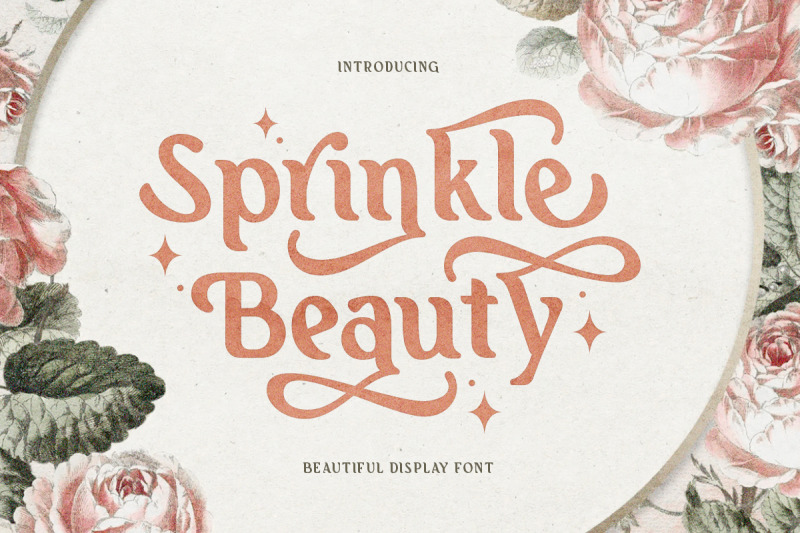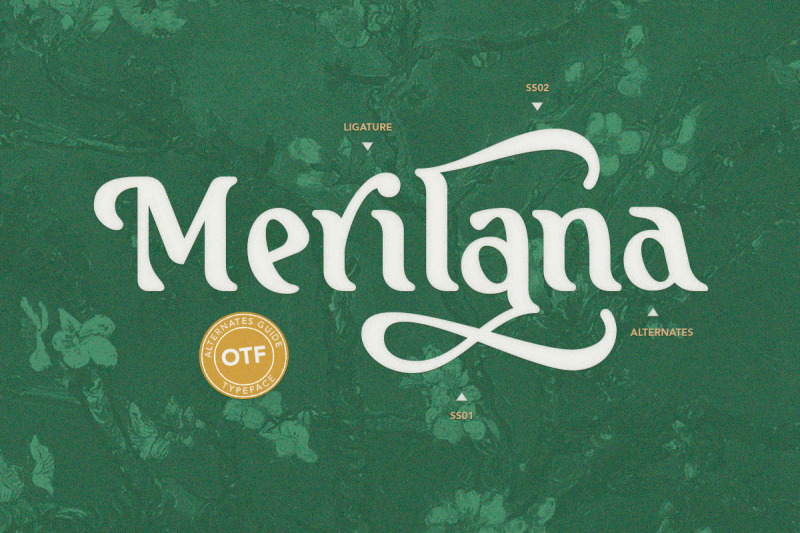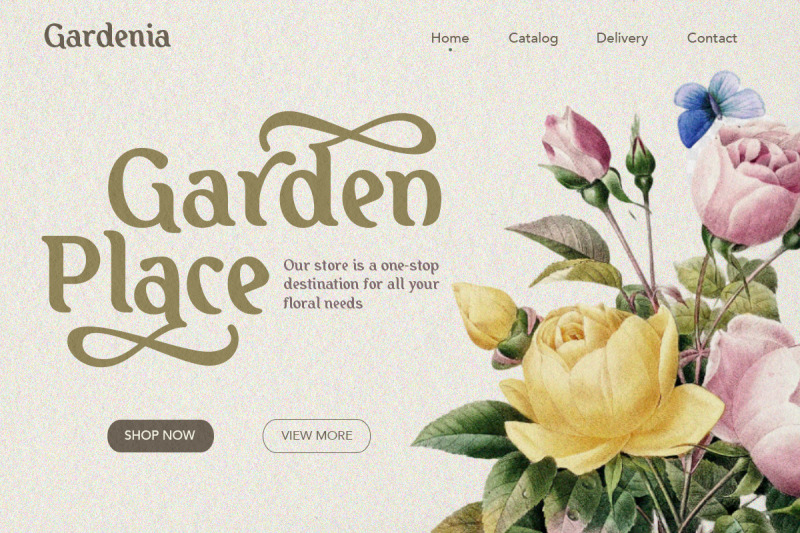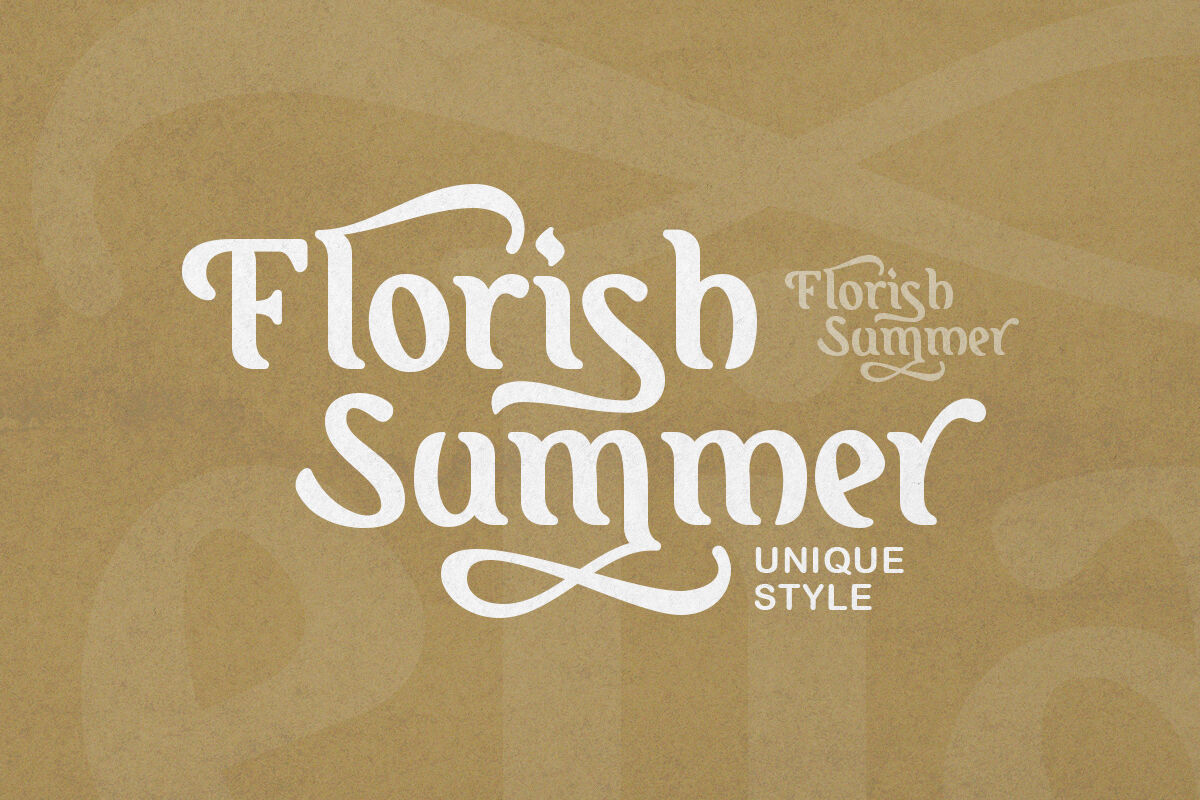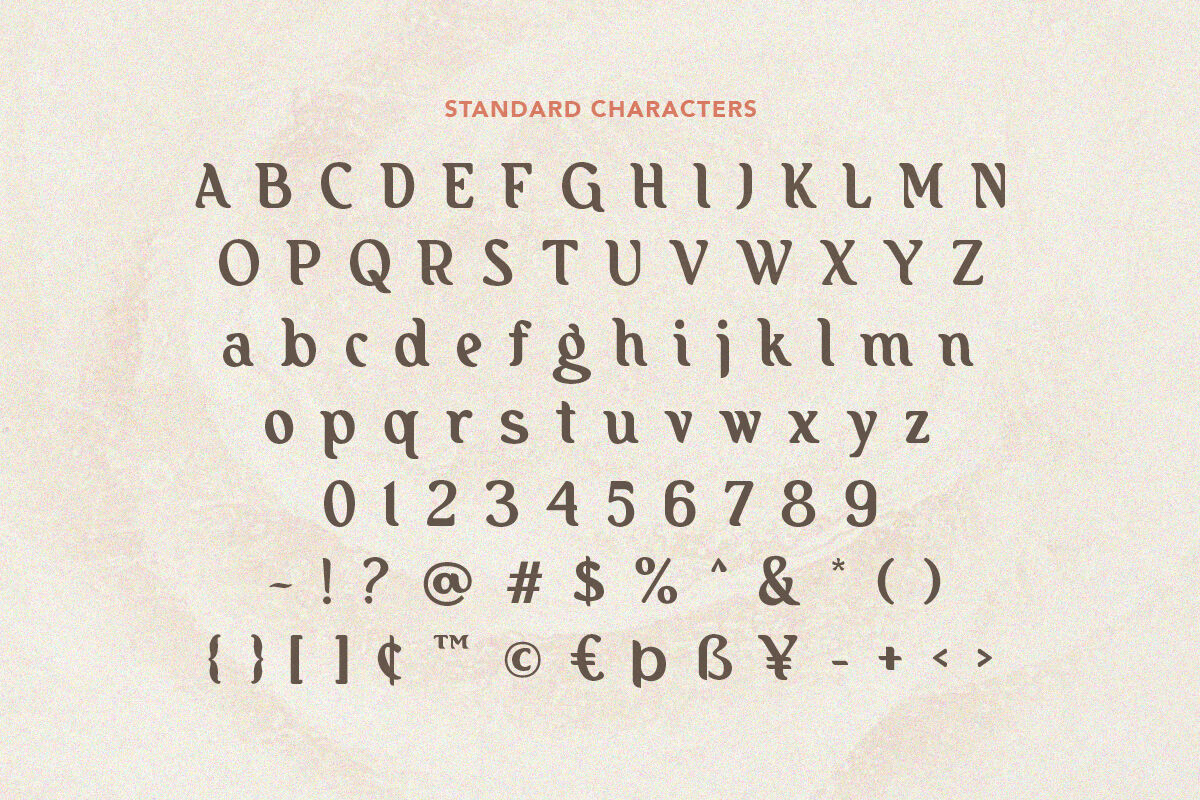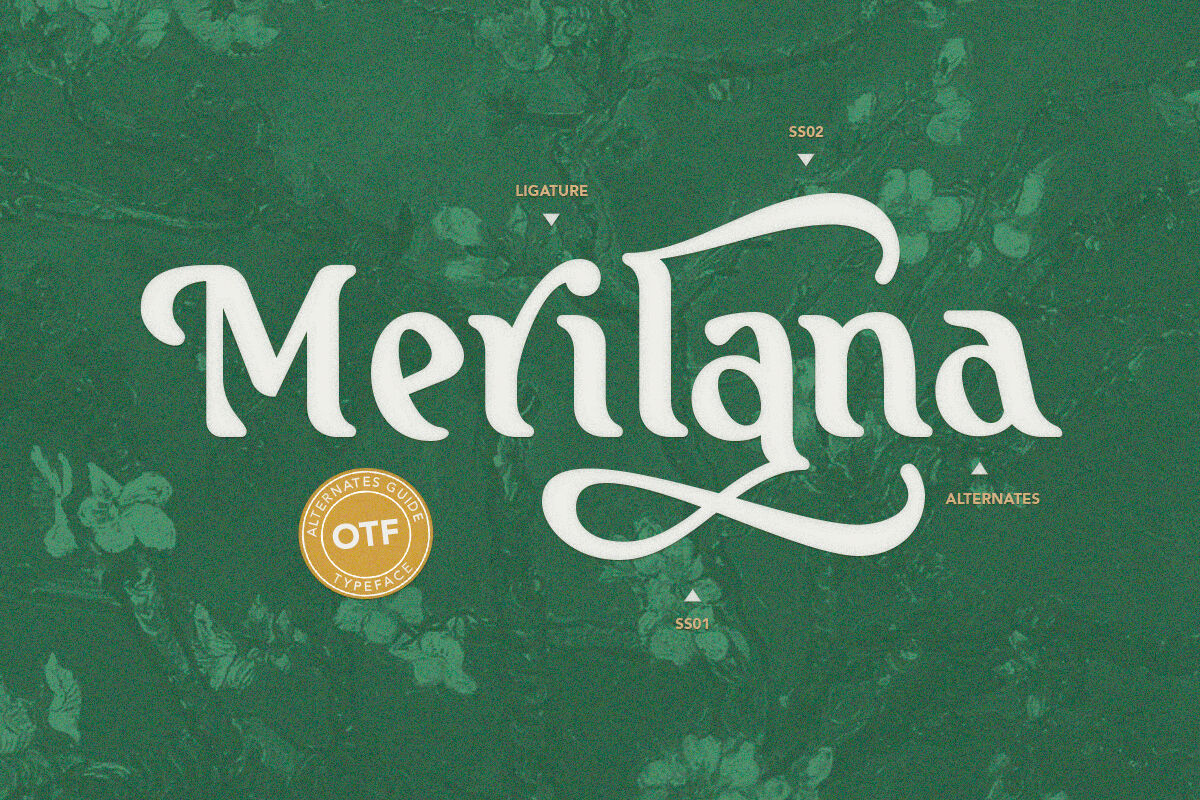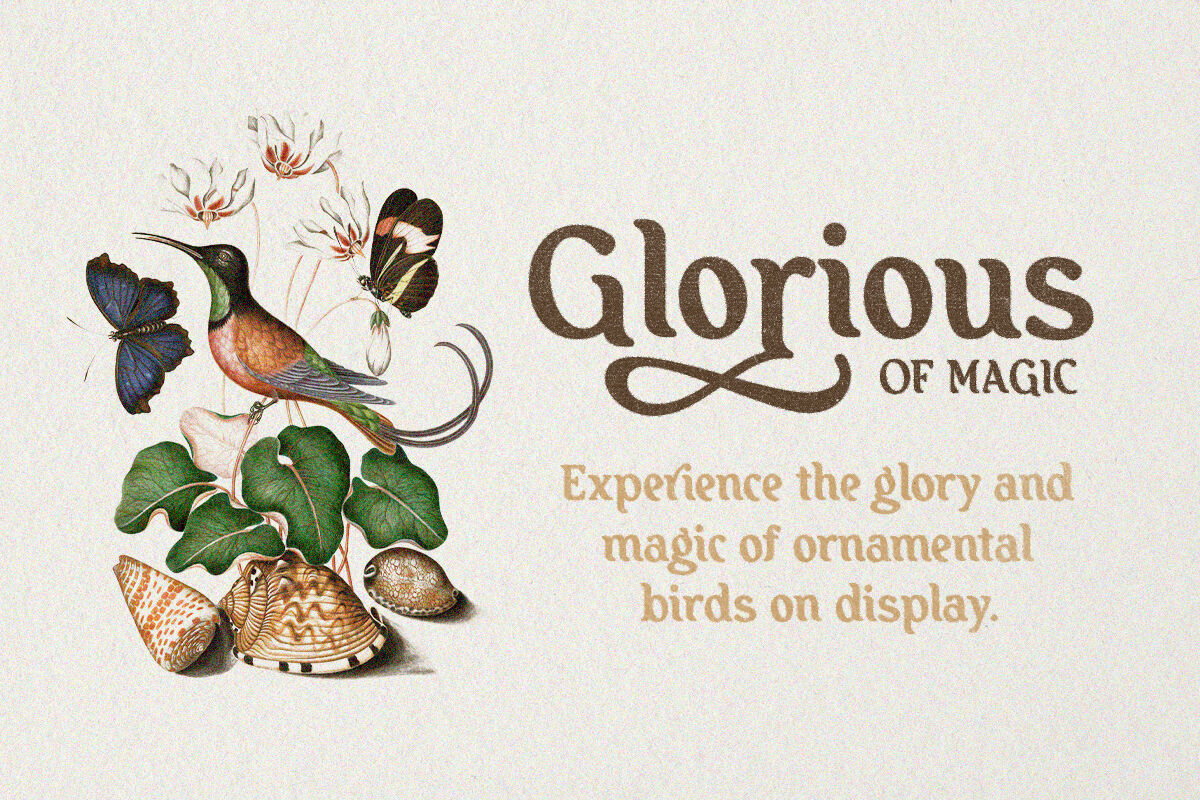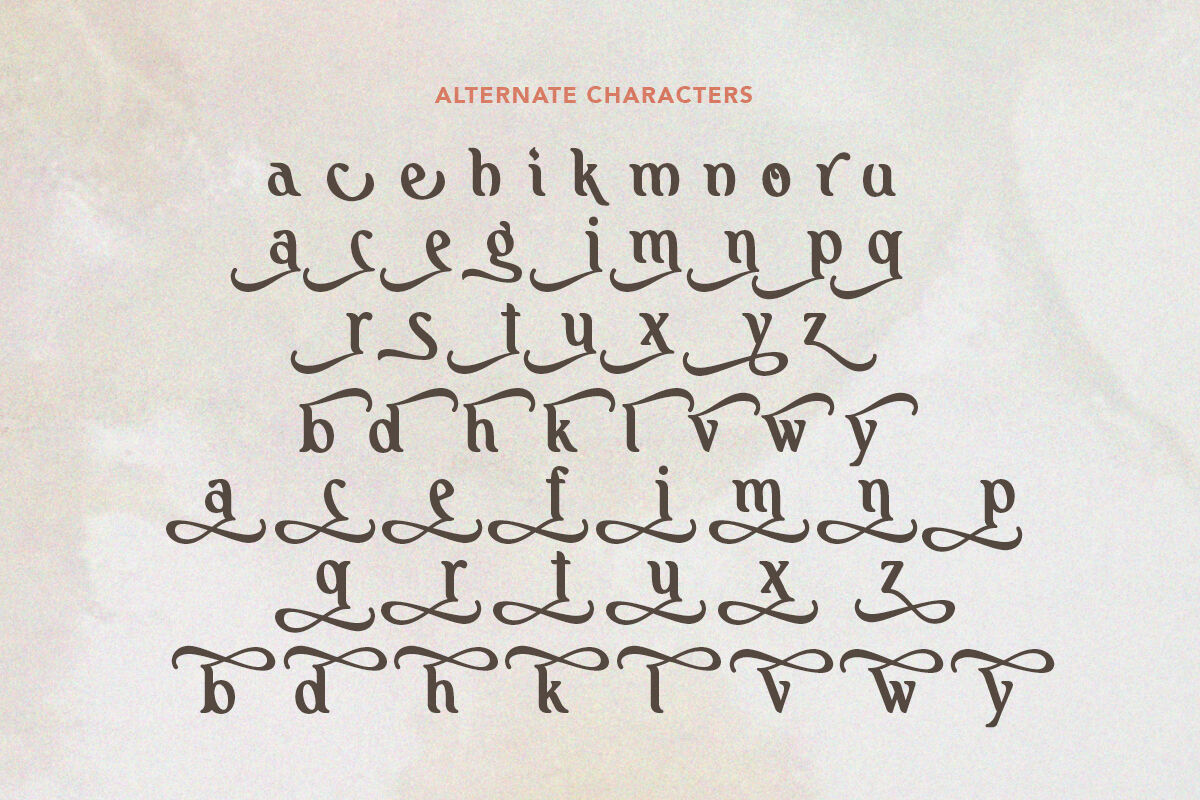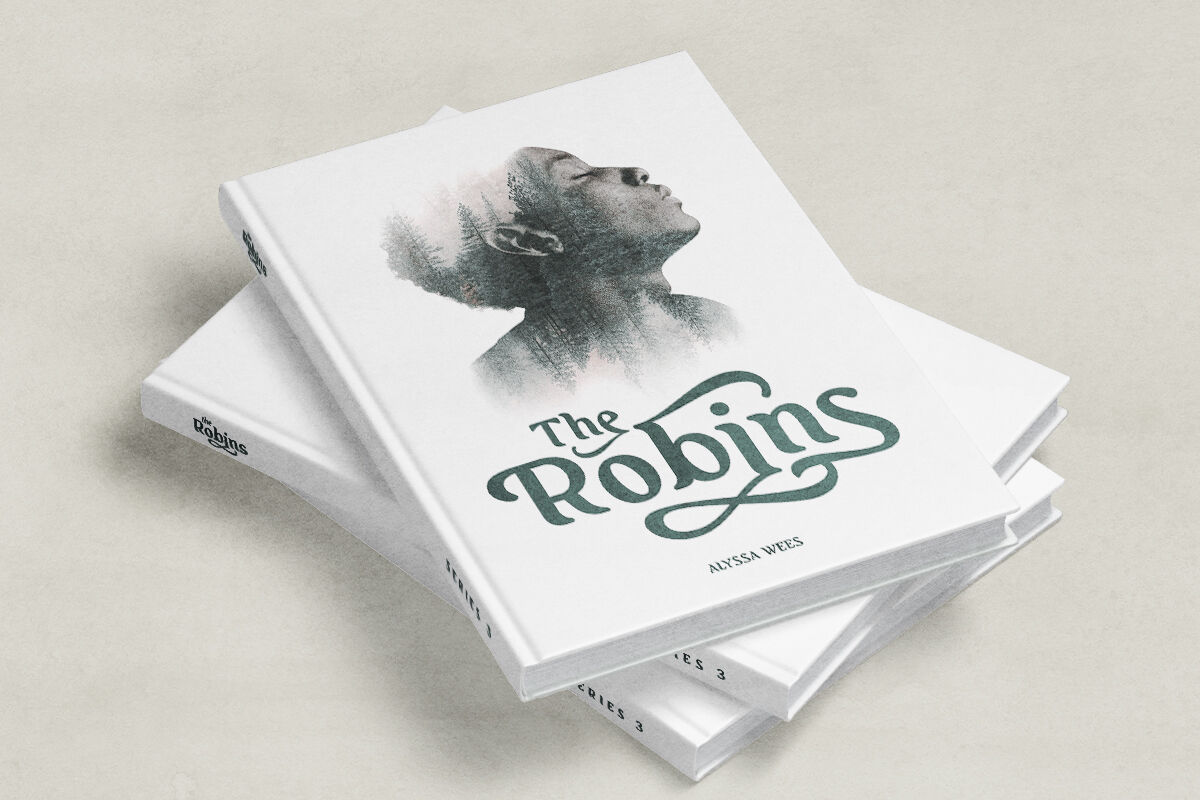
Sprinkle Beauty - Display Bold Font
Sprinkle beauty is a beautiful display font with bold style based on serif. With stunning alternates, you can make your project more appealing and attractive. You can use this font for many purposes such as wedding invitations, quotes, branding, and logo. This font also support multi language!